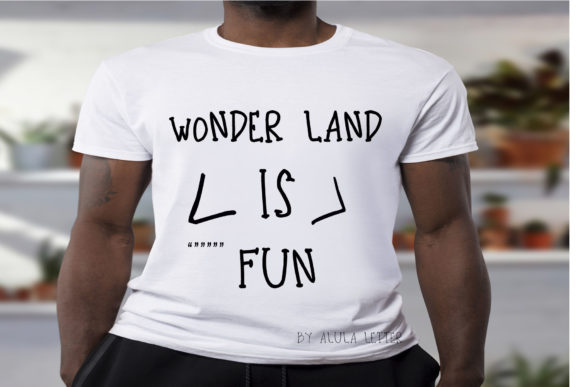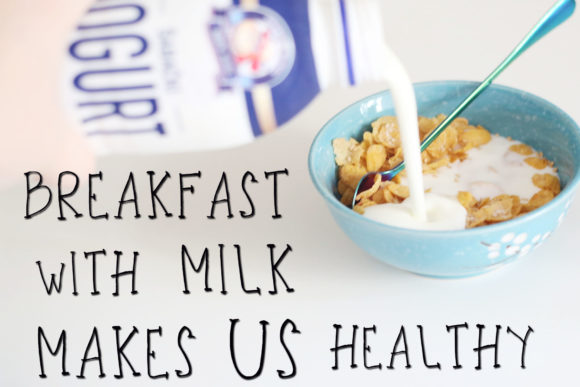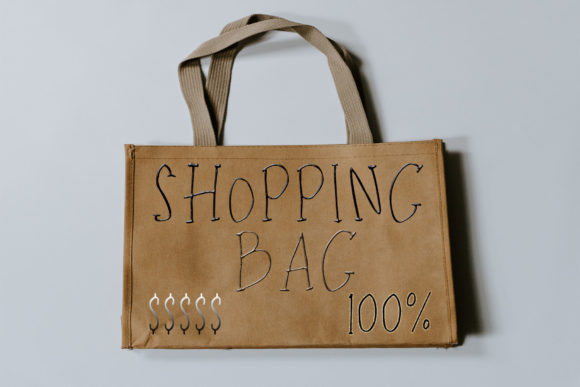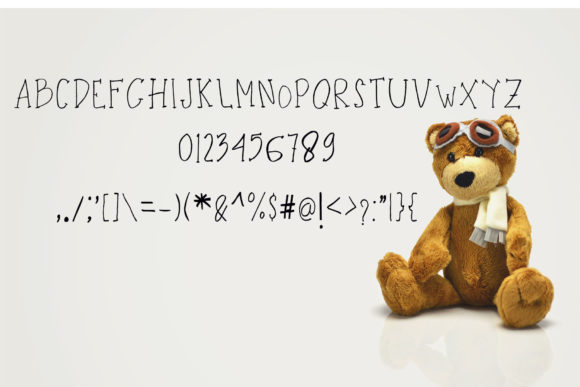
Introduction to Restola Font
Restola is a unique, funny font that radiates authenticity.
Get inspired by its unique charm, and turn any design project into an eye-catcher .
Key Features of Restola Font
Why Choose Restola Font?